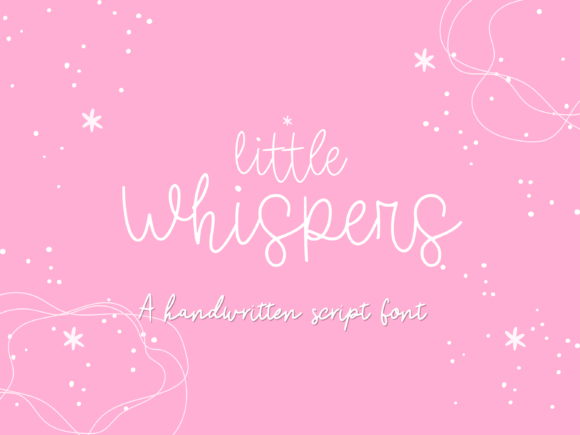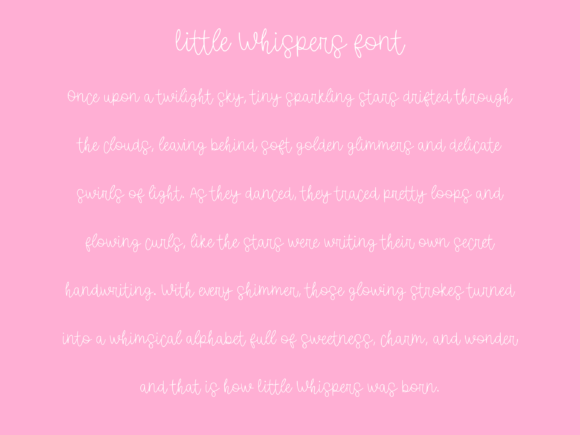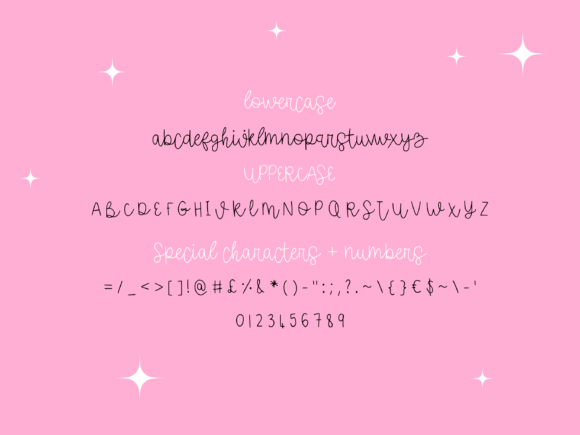
Little Whispers Script Fonts
Breathe a sense of ethereal calm into your next project with Little Whispers, a refined monoline script designed for quiet impact. Defined by its weightless, linear structure and expansive, rhythmic flourishes, this typeface strikes a perfect balance between artisanal intimacy and contemporary minimalism. It offers a fluid, organic aesthetic that feels both bespoke and effortless—ideal for crafting sophisticated visual identities for boutique apothecary brands, upscale nursery labels, and artisanal lifestyle products. When your design demands an atmosphere of sincerity and grace, Little Whispers delivers a delicate, sophisticated silhouette that speaks volumes without ever raising its voice.